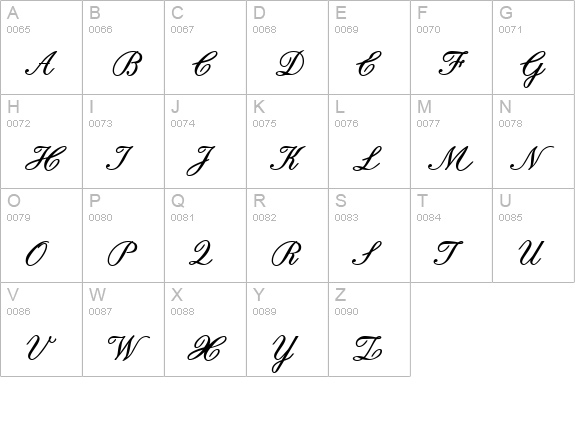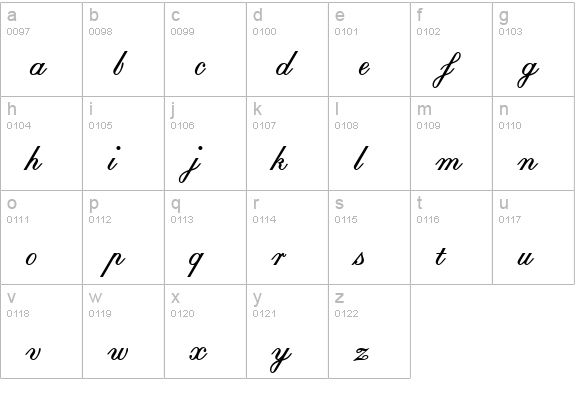
EdwardEdwin Bold Font Details
EdwardEdwin Bold is a strong, high-contrast variant in the EdwardEdwin typeface family \xE2\x80\x94 well suited to headlines, attention-grabbing titles, and strong calls-to-action.
Introducing EdwardEdwin Bold font, a captivating and versatile typeface that effortlessly commands attention with its bold and powerful presence. This font is the perfect choice for those seeking to make a bold statement in their designs, whether it be for branding, advertising, headlines, or any other creative project. With its strong and impactful letterforms, EdwardEdwin Bold font exudes a sense of confidence and authority. Its meticulously crafted lines and curves lend a touch of elegance, while still maintaining a modern and contemporary feel. This font is designed to leave a lasting impression, ensuring that your message is delivered with utmost impact. But what sets EdwardEdwin Bold font apart is not just its remarkable design; it is also available for free! Yes, you read that right. This incredible font can be freely downloaded at FontsMarket.com, making it accessible to designers, creatives, and enthusiasts alike. Whether you are a professional designer looking to elevate your projects or an aspiring creator eager to experiment with new fonts, EdwardEdwin Bold font is here to meet your needs. Its versatility allows it to be used in a wide range of applications, from print to digital, ensuring that your designs stand out from the crowd. So why wait? Download EdwardEdwin Bold font today from FontsMarket.com and unleash the boldness and creativity in your designs. Experience the power of this remarkable typeface and watch as it transforms your projects into captivating works of art.